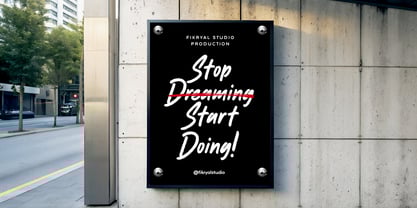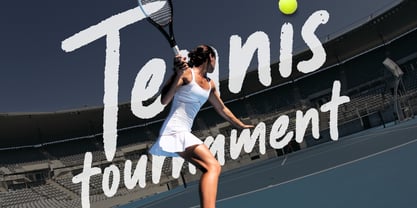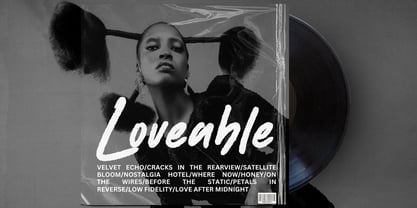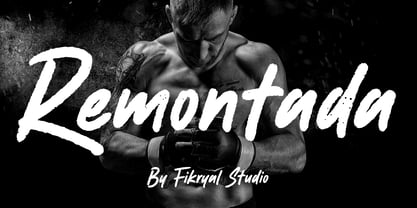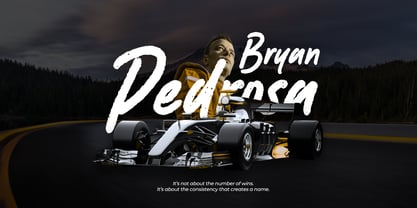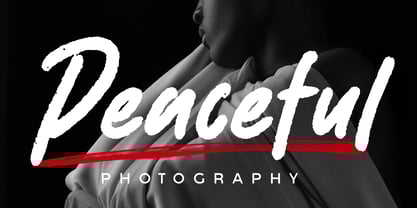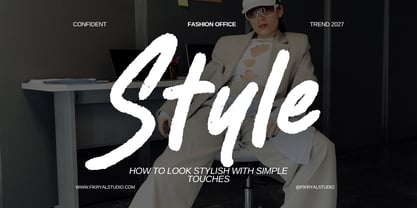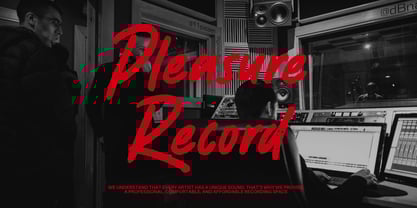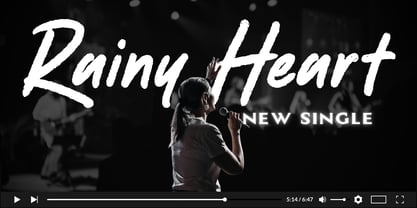
Remontada
by Fikryal
The Remontada Font Family was designed by Muhammad Fikry and published by Fikryal. Remontada contains 1 styles.
Remontada – Brush Display Font is a captivating handwritten brush display typeface that infuses the raw energy of brush strokes into contemporary design. Featuring both uppercase and lowercase letters, it provides versatility and a natural flow, making it ideal for bold headlines and expressive branding. Each stroke in Remontada embodies the texture and rhythm of authentic brush handwriting, imparting a handcrafted, artistic appearance that feels genuine and impactful. ✨ Perfect for: Branding & logo design, packaging and label design, posters & advertising, apparel and merchandise, social media content & quotes. 💡 Features: Uppercase & lowercase, numerals & punctuation, multilingual support, natural brush texture. Elevate your designs with the bold, organic charm of Remontada — a brush font that injects personality, confidence, and creativity into every project.